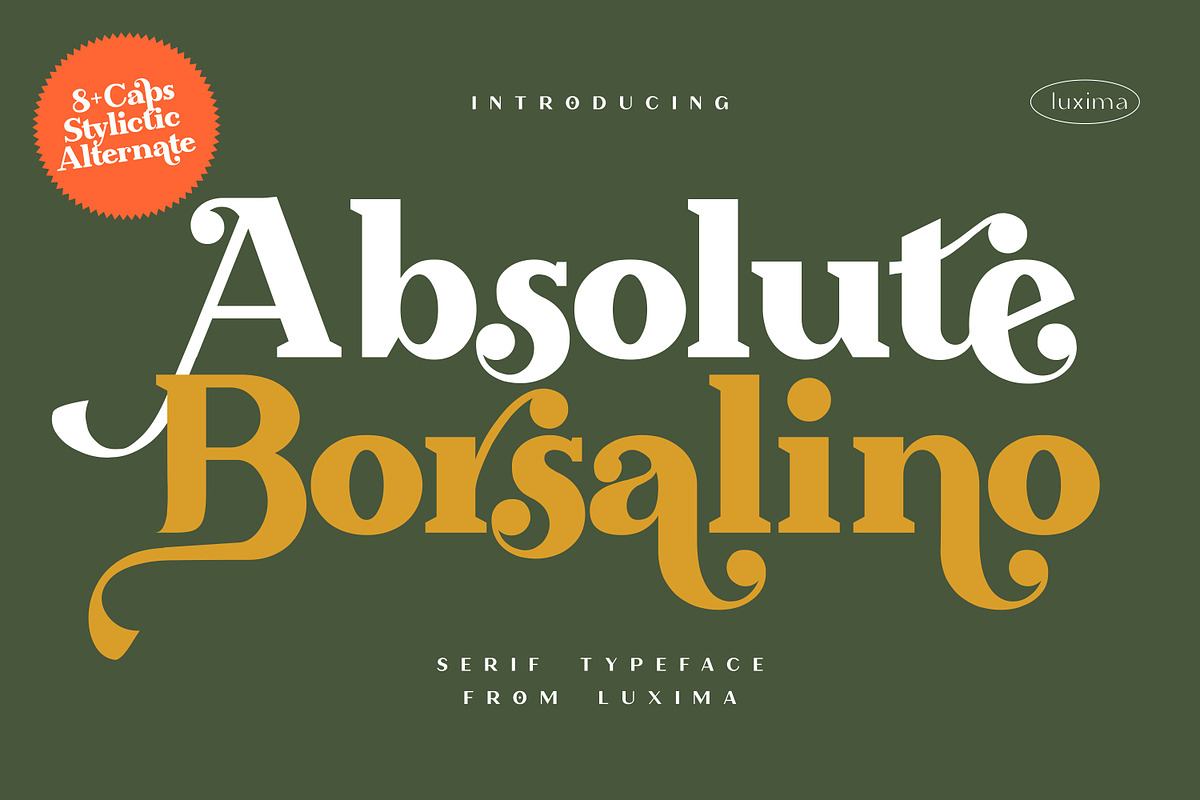
Absolute Borsalino – Serif Font Free Download is a classic and stylish typeface that blends timeless elegance with vintage flair. With high-contrast strokes, sharp serifs, and graceful curves, this font is perfect for fashion editorials, luxury branding, logos, magazine layouts, and premium packaging designs.
Absolute Borsalino – Serif Font Free Download exudes sophistication and confidence, making it a top choice for creatives who want their typography to leave a lasting impression. Whether you're designing for print or digital, this font adds a refined, upscale tone to any project.